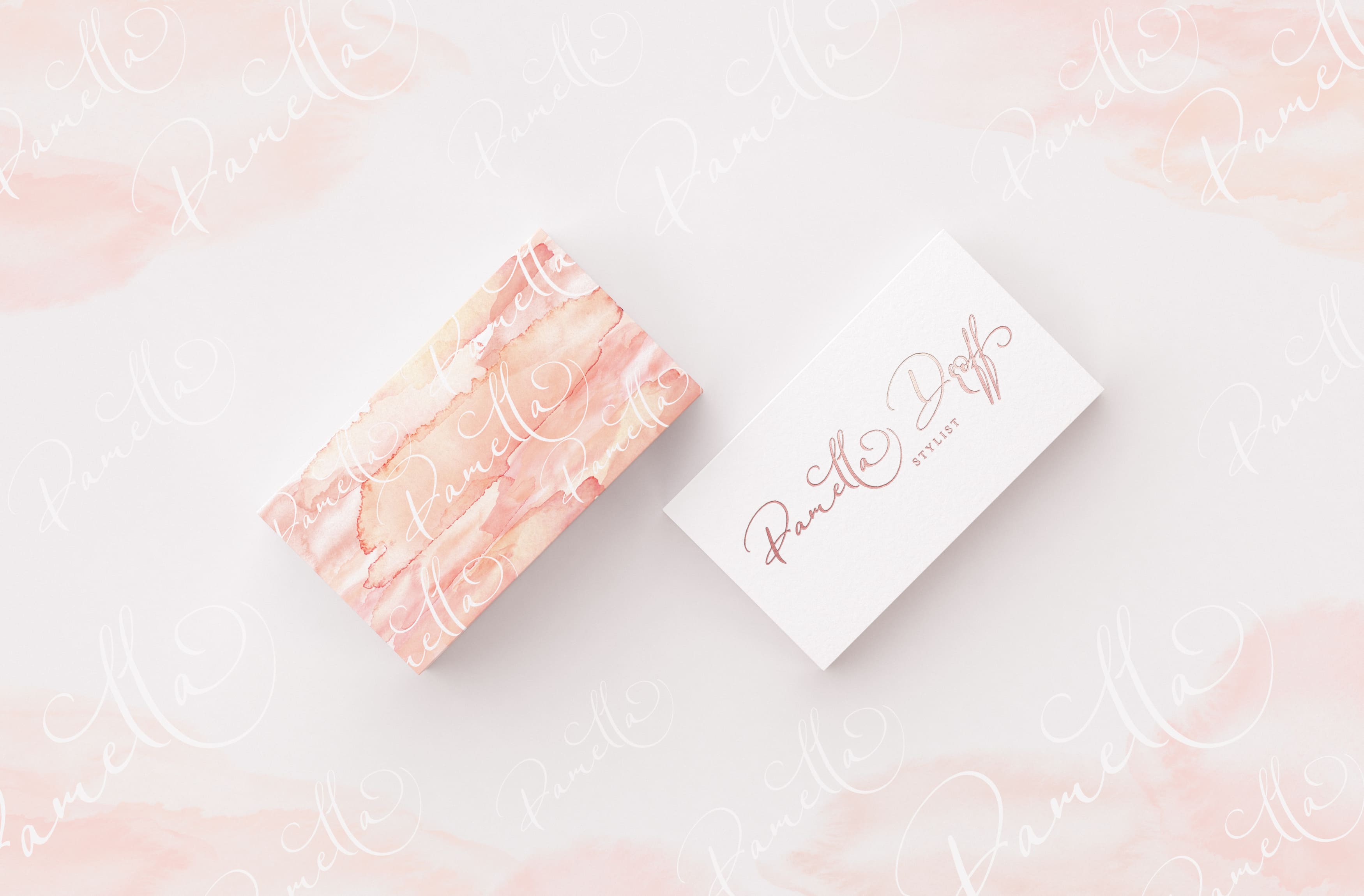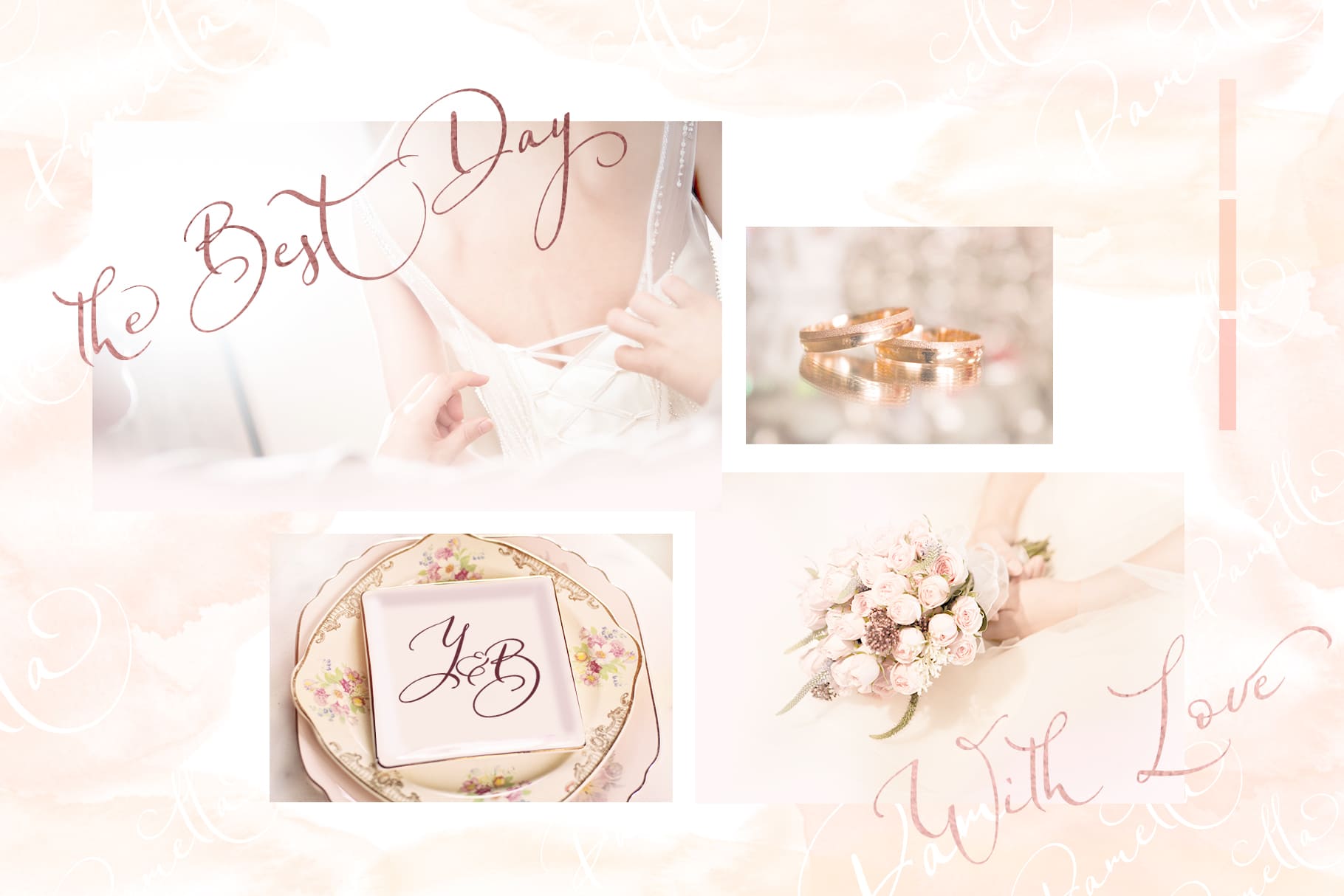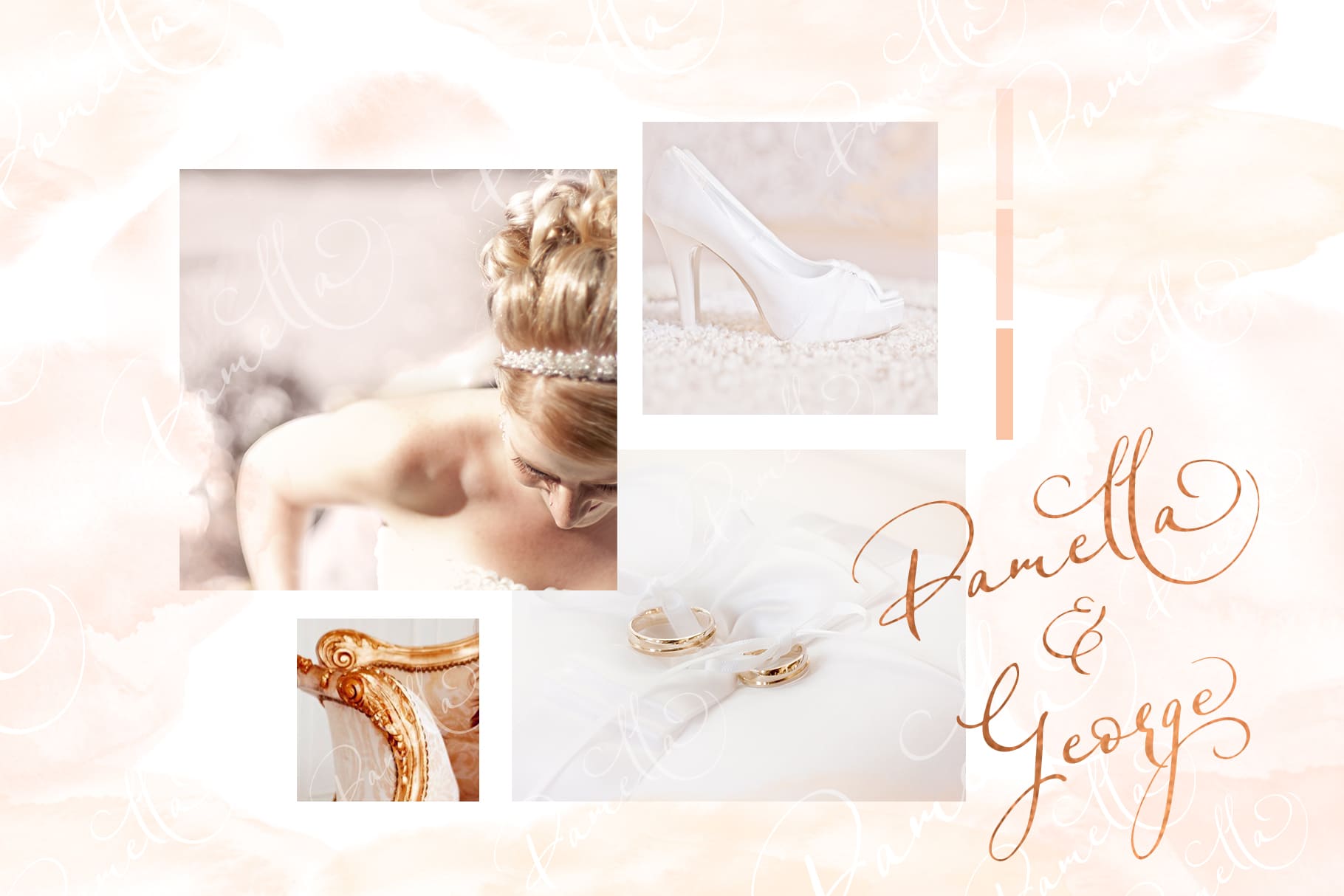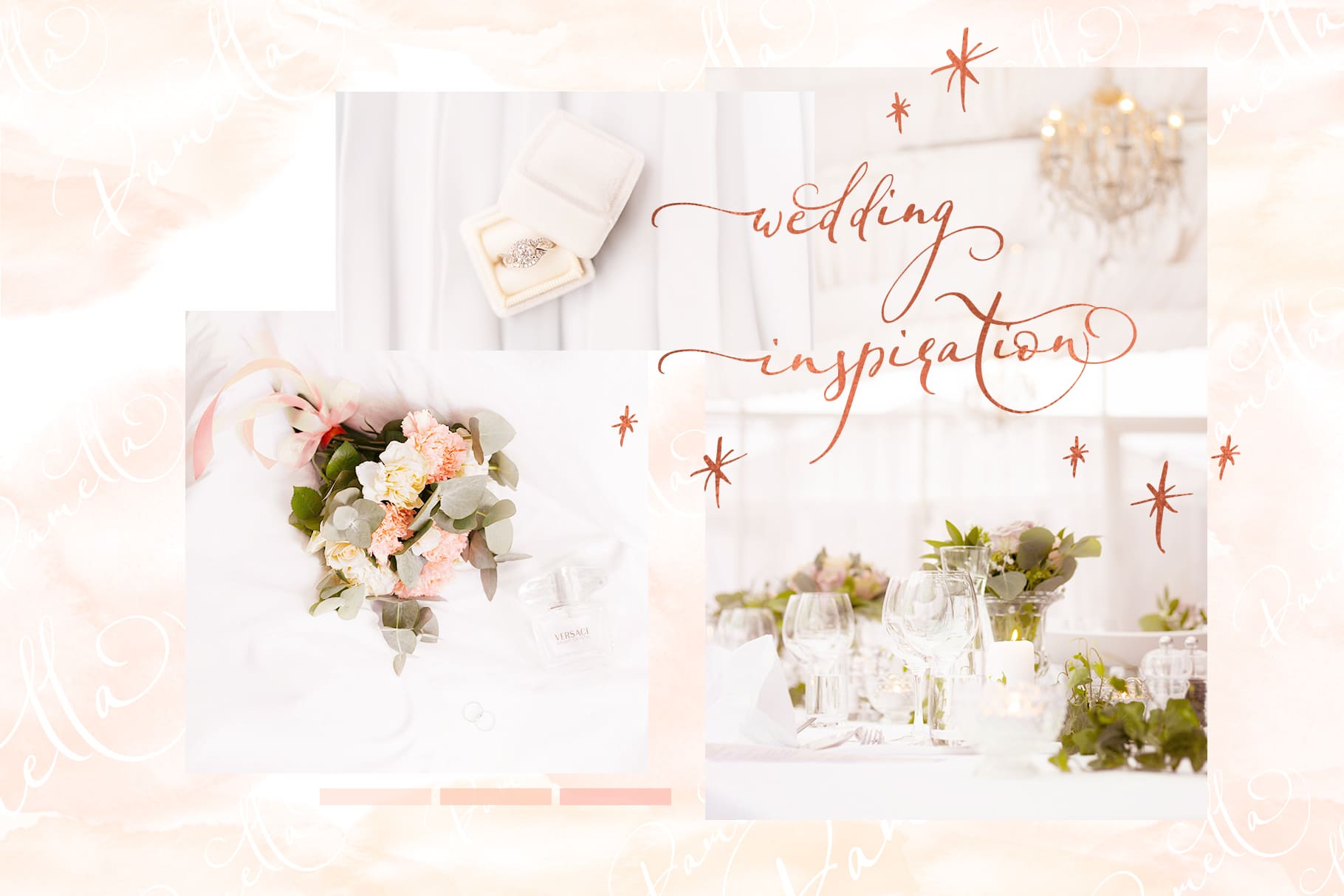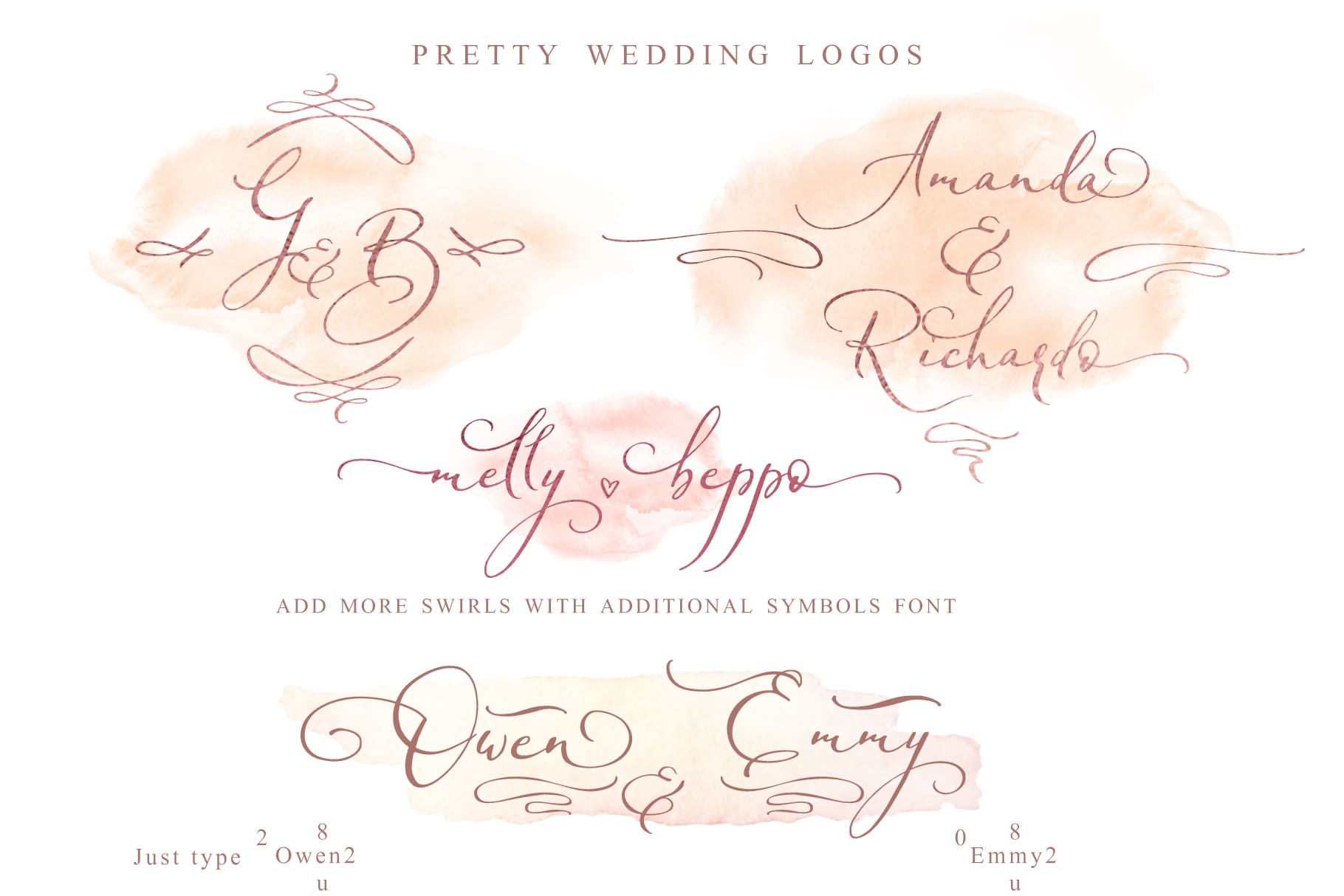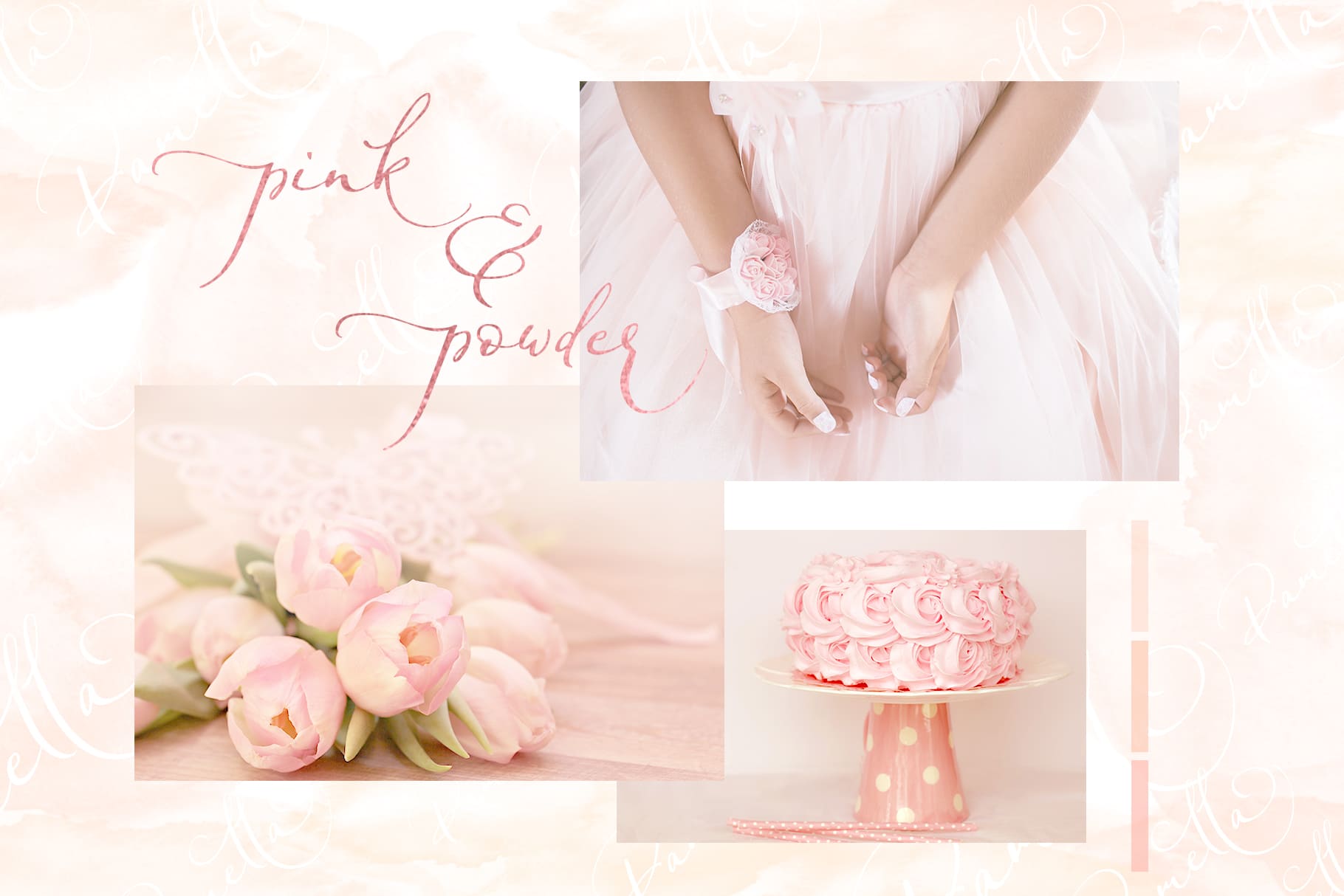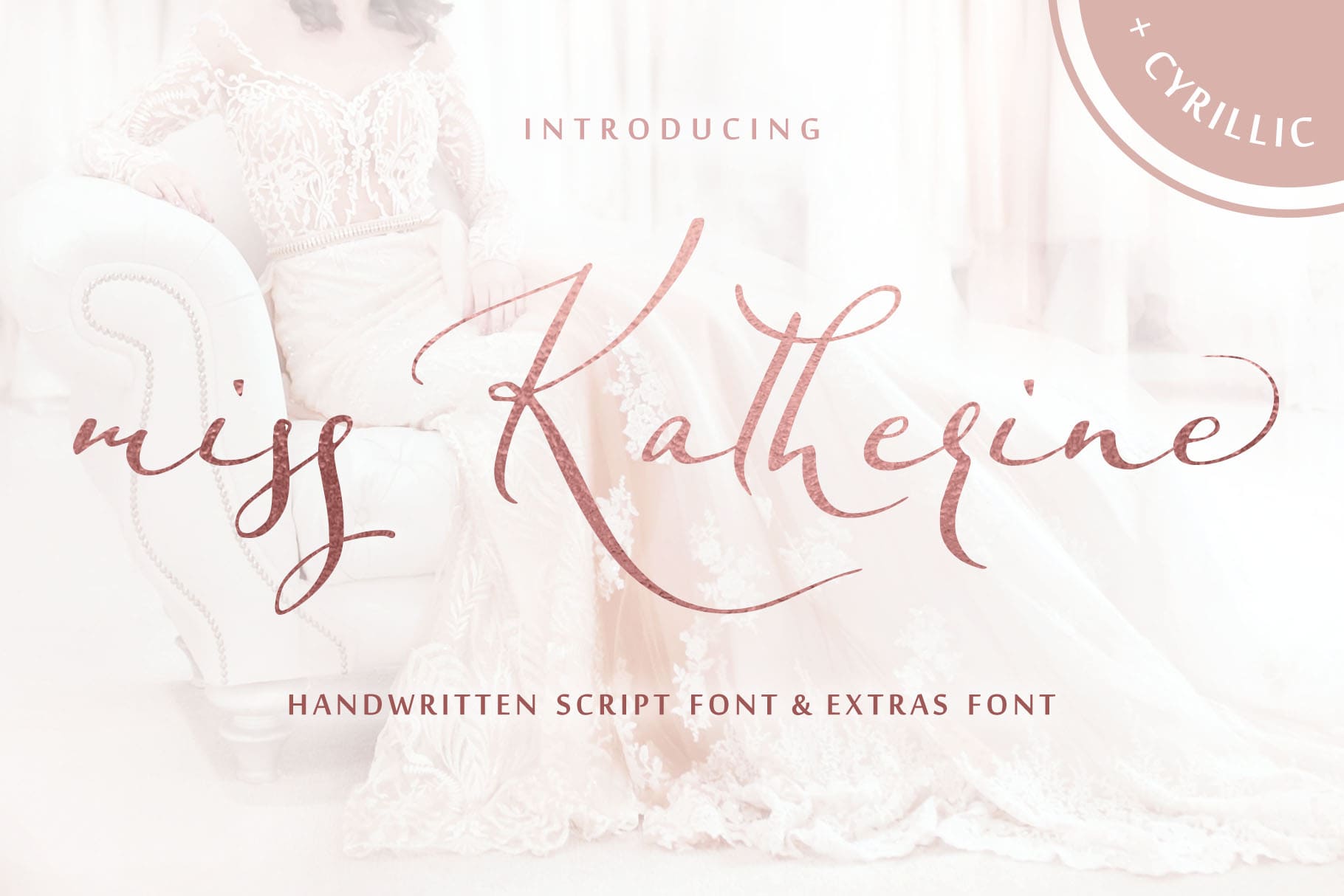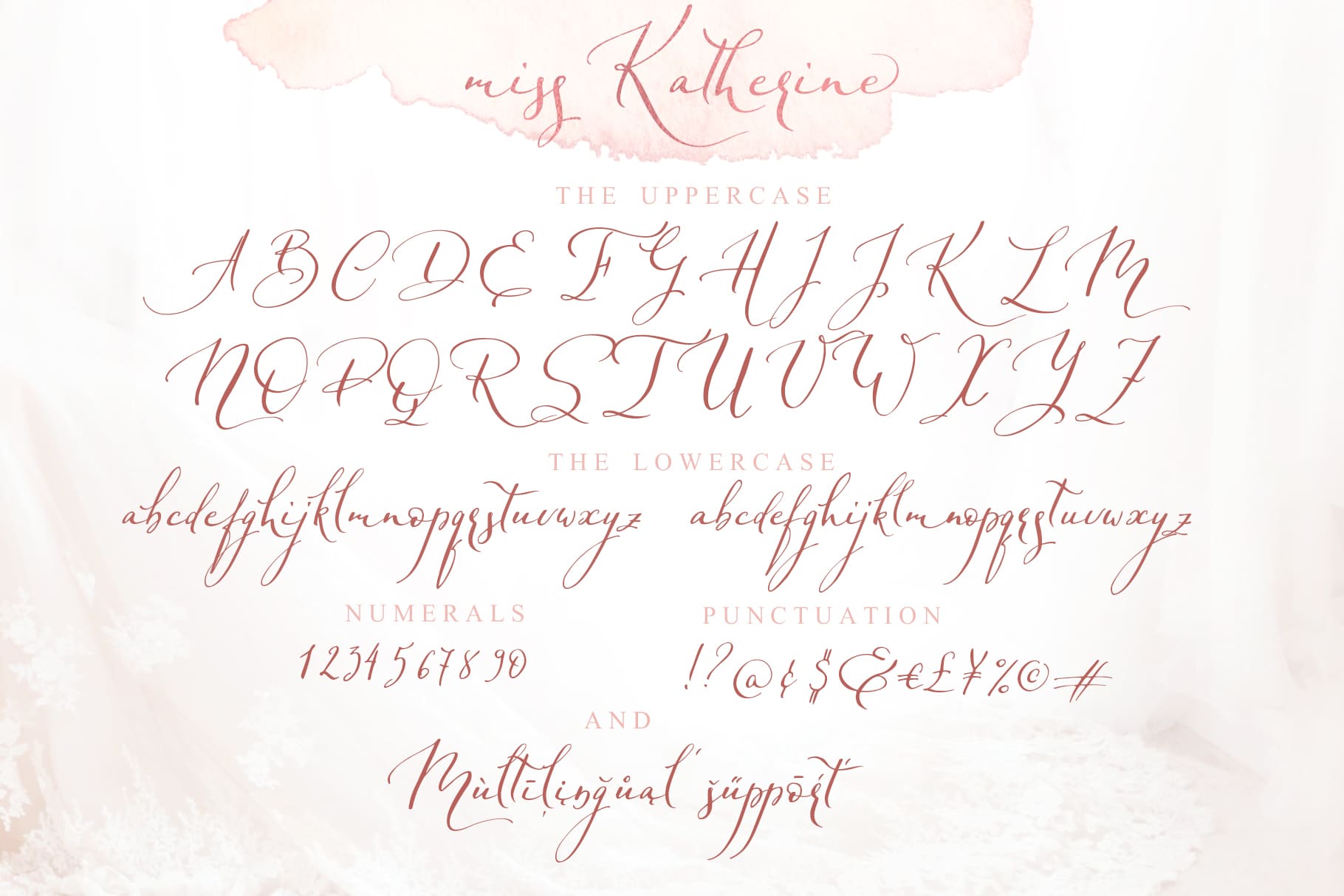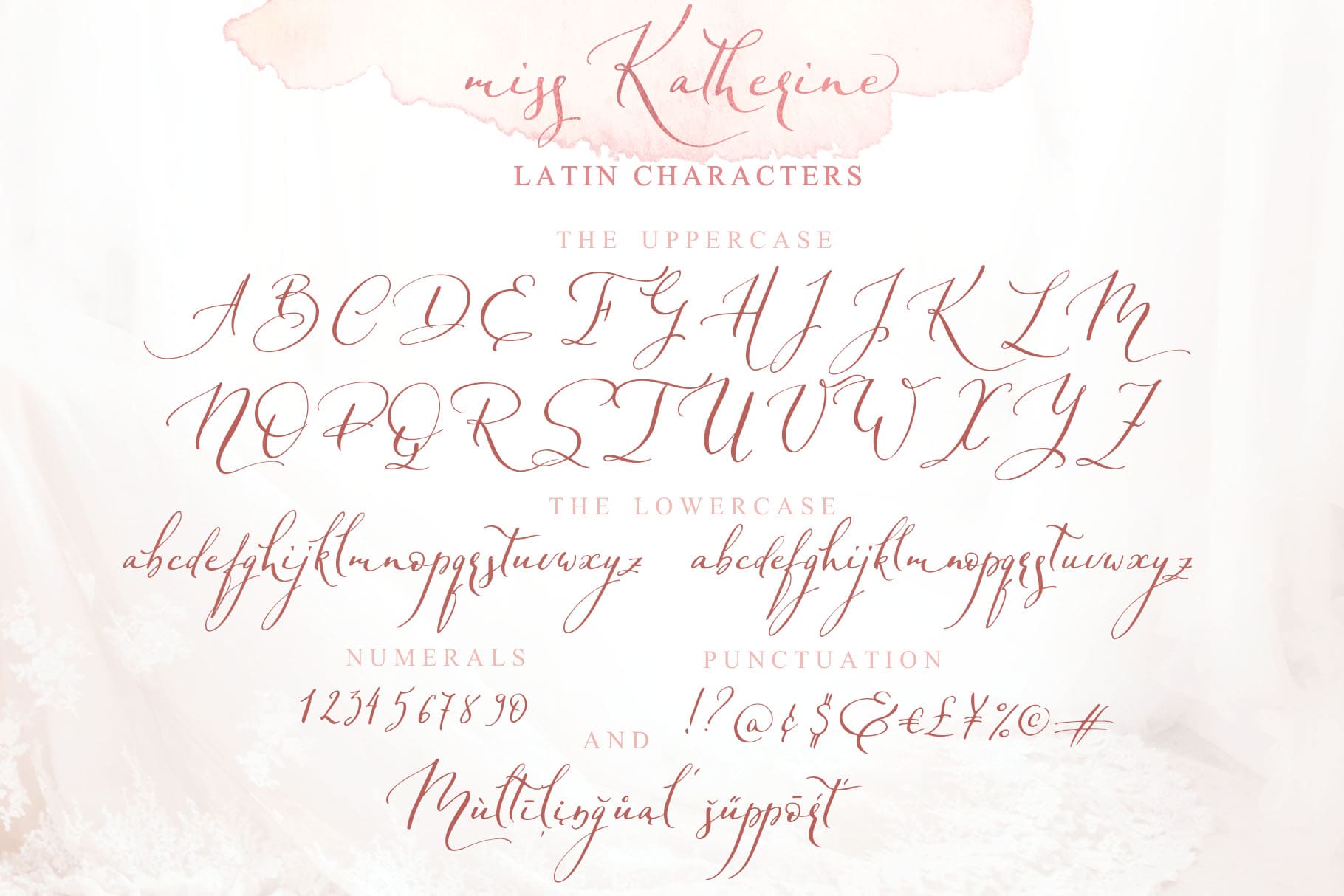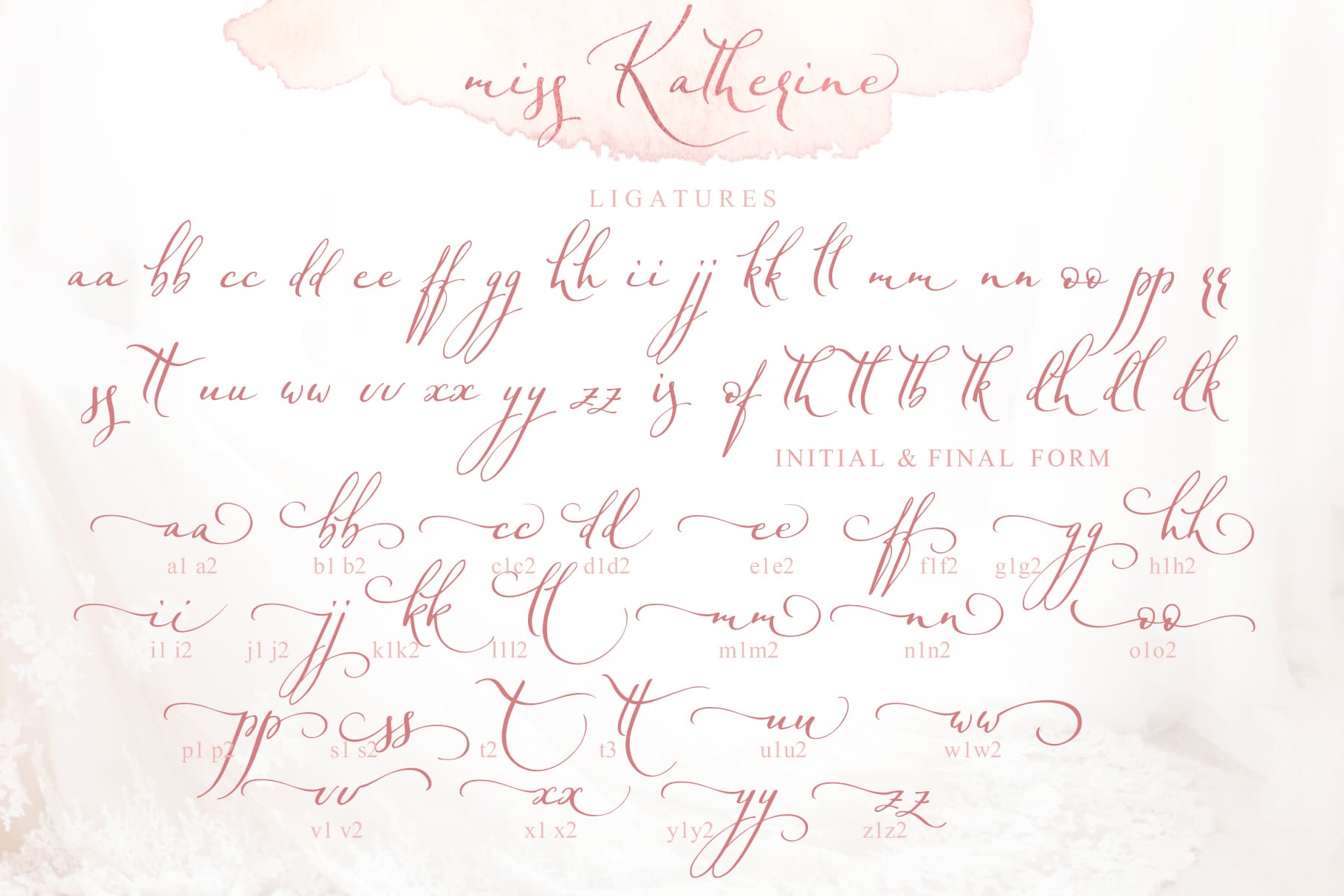
Miss Katherine Family (2 fonts)
Miss Katherine font + Extras & Logo it includes also Cyrillic glyphs Uppercase lowercase and 2 sets lowercase with flourishes.
Miss Katherine script includes a full set of gorgeous uppercase, 4 sets of lowercase letters, numerals, a large range of punctuation and 35 ligatures, giving realistic hand-lettered style.
Miss Katherine_symbols is a font with over 36 hand-drawn elements, catchwords, illustrations, and swashes and can help to make your design more original. A different symbol is assigned to ever uppercase or lowercase standard character plus numbers 0-9 so you do not need graphics software just simply type the letter you need.
Multilingual Support for 31 languages:
Latin glyphs for Afrikaans, Albanian, Basque, Bosnian, Catalan, Danish, Dutch, English, Estonian, Faroese, Filipino, Finnish, French, Galician, Indonesian, Irish, Italian, Malay, Norwegian Bokmål, Portuguese, Slovenian, Spanish, Swahili, Swedish, Turkish, Welsh, Zulu. And Cyrillic glyphs support for Russian, Belorussian, Bulgarian and Ukrainian languages. For pre-made logos required software: Adobe Photoshop or Photoshop Elements